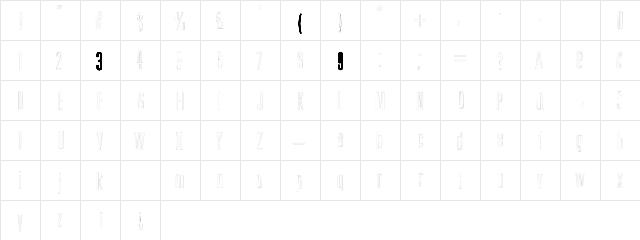
FuryOpen Regular
Design Context for FuryOpen Typeface
FuryOpen takes a measured approach to typography — its balanced proportions and neutral character make it a reliable workhorse for both digital and print work.
Pro Tip: Use FuryOpen in both headline and body roles to test its range before committing to a single application.